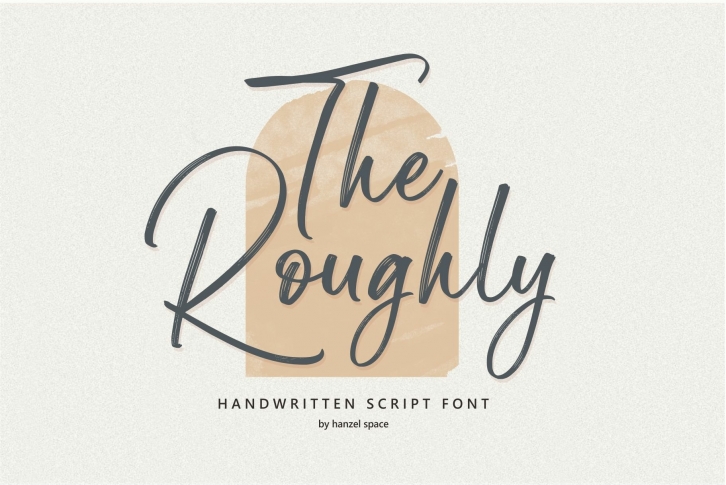
The Roughly Script is a beautiful font that was designed by HanzelStudio. It's a great choice for designers and creatives who need such a font. It was released on November 7, 2021 and the file size is 1.10 MB. The Roughly Script may give a more youthful, expressive and casual look to your project. It is a very beautiful, refined, elegant, and high-quality font.